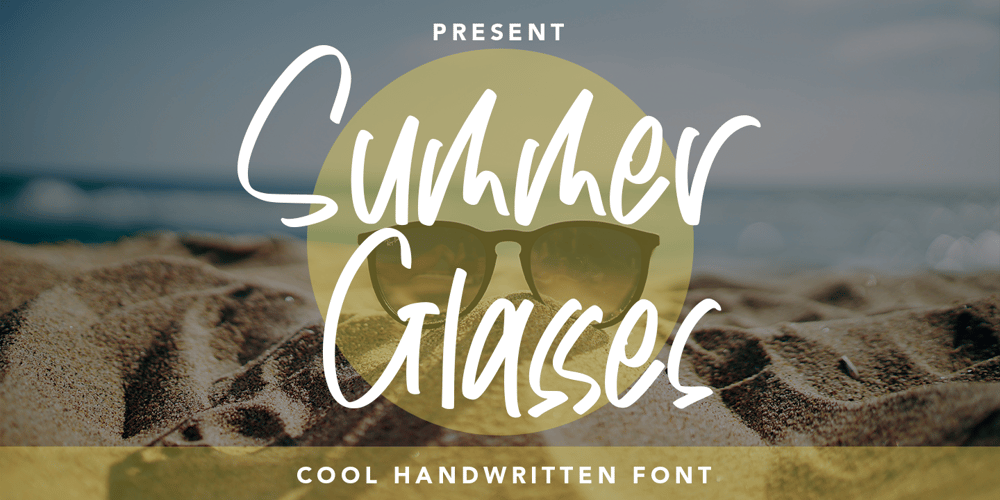
Summer Glasses Font Family was designed by Asep Rendi and published by Arendxstudio. Summer Glasses contains 1 styles and family package options. Summer Glasses – Cool Handwritten with sharp and beautiful letters that create fonts that are modern, trendy and elegant. Came with opentype features such stylistic alternates, stylistic sets & ligatures good for logotype, poster, badge, book cover, tshirt design, packaging and any more.Features : • Character Set A-Z • Numerals & Punctuations (OpenType Standard) • Accents (Multilingual characters) • Ligature • AlternateThere it is! I really hope you enjoy it